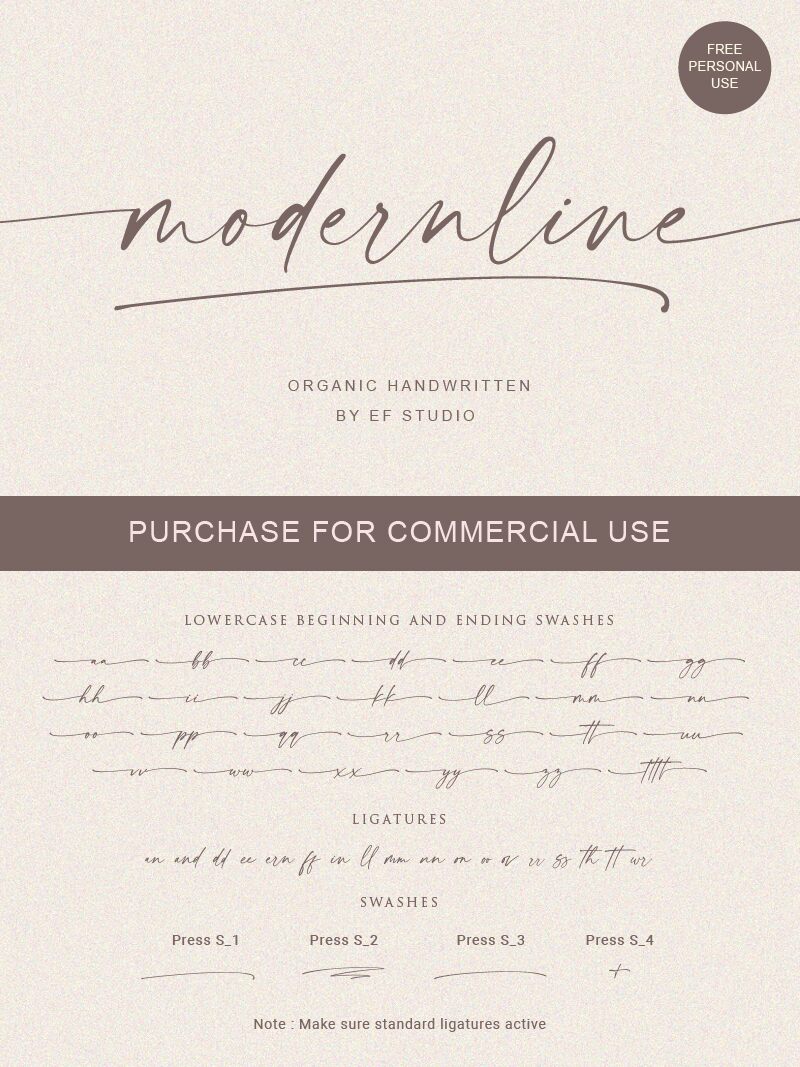
modernline - Personal Use Ef Studio OpenTypeKostenlose private Nutzung
modernline - Personal Use
Features : Lowercase Beginning & Ending Swashes, Extra Swashes & Ligatures.